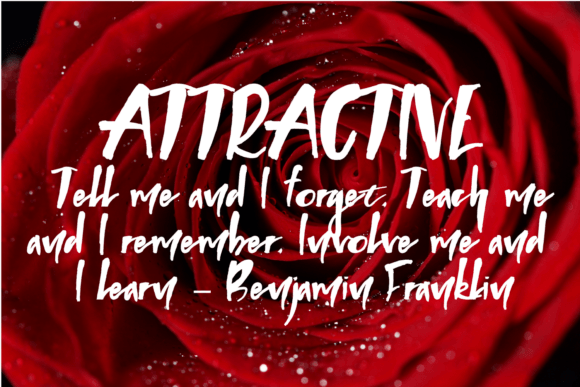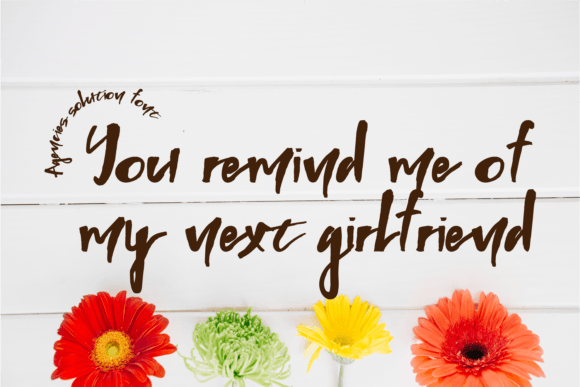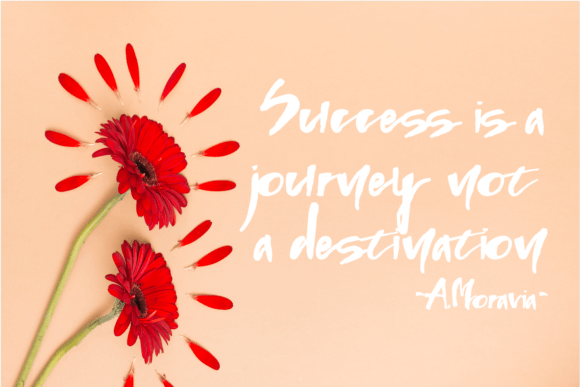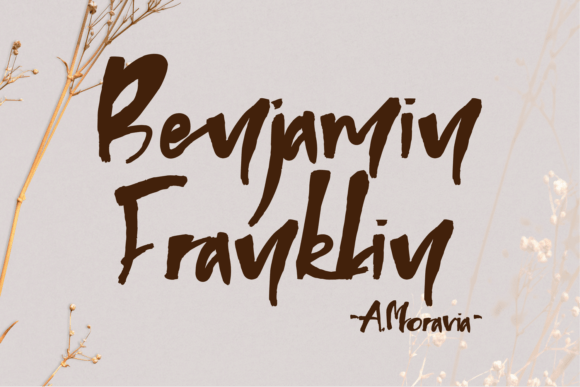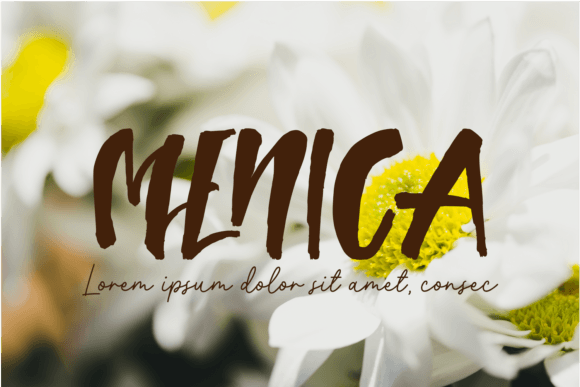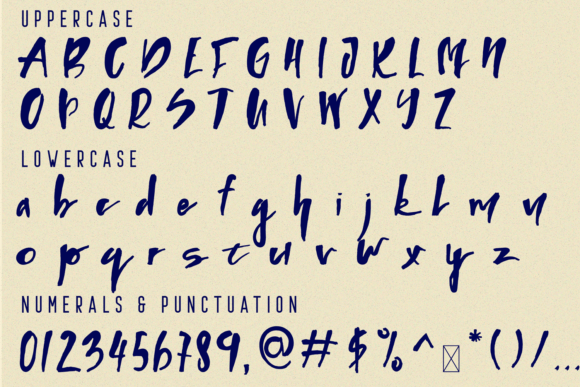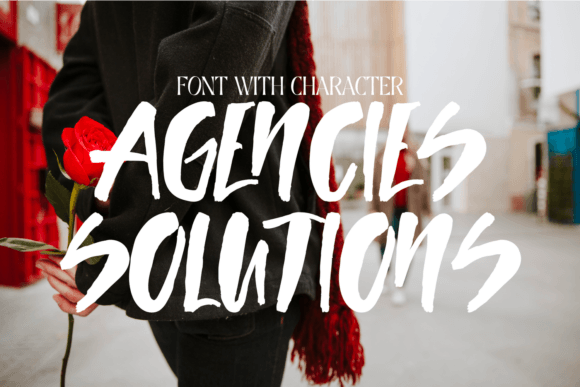
Introducing Agencies Solutions Font: Elevate Your Creative Projects with a Handwritten Display Font
Are you tired of using the same old fonts in your creative projects? Do you want to add a personal touch that sets your work apart from the rest? Look no further than Agencies Solutions Font, a handwritten display font that brings a strikingly authentic feel to your designs. In this article, we’ll dive into the features and benefits of Agencies Solutions Font, and explore how it can elevate your creative projects.
What is Agencies Solutions Font?
Agencies Solutions Font is a carefully crafted handwritten display font that exudes a sense of personality and charm. Its unique, hand-written style gives it a distinctive and authentic feel that’s perfect for adding a personal touch to your creative projects. Whether you’re a designer, craftsperson, or DIY enthusiast, Agencies Solutions Font is the perfect choice for anyone looking to add a touch of elegance and sophistication to their work.
Key Features of Agencies Solutions Font
• Handwritten Display Font: Agencies Solutions Font is a handwritten display font that’s designed to make a statement. Its unique, flowing script is perfect for headlines, titles, and other display text.
• Authentic Feel: With its carefully crafted letterforms and natural flow, Agencies Solutions Font has a strikingly authentic feel that’s sure to capture the attention of your audience.
• Versatile: Whether you’re working on a logo, brochure, or social media graphic, Agencies Solutions Font is versatile enough to fit any design need.
Benefits of Using Agencies Solutions Font
So why choose Agencies Solutions Font for your creative projects? Here are just a few benefits of using this amazing font:
• Adds Personality: Agencies Solutions Font adds a personal touch to your designs, setting them apart from the standard fonts and giving them a unique, handmade feel.
• Enhances Readability: With its clear and flowing script, Agencies Solutions Font is easy to read and understand, making it perfect for body text and headlines.
• Boosts Creativity: Agencies Solutions Font is designed to inspire creativity and imagination. Its unique style and authentic feel will help spark new ideas and bring your designs to life.
• Professional Results: With Agencies Solutions Font, you can achieve professional-looking results without the need for extensive design experience.
How to Use Agencies Solutions Font in Your Creative Projects
Using Agencies Solutions Font in your creative projects is easy. Here are a few tips to get you started:
• Pair it with Other Fonts: Agencies Solutions Font pairs well with other fonts, making it easy to create visually appealing combinations.
• Experiment with Colors: Try pairing Agencies Solutions Font with different colors to create a unique and eye-catching effect.
• Use it for Headlines: Agencies Solutions Font is perfect for headlines and titles. Use it to add a touch of elegance and sophistication to your designs.
• Add Texture and Patterns: Consider adding texture and patterns to your designs to give them an extra layer of depth and interest.
Font Name Agencies Solutions Font
Author 177Studio
Agencies Solutions Font is a powerful tool for designers and crafters looking to add a personal touch to their creative projects. With its unique, handwritten style and authentic feel, it’s the perfect choice for anyone looking to elevate their designs and achieve professional-looking results. So why wait? Download Agencies Solutions Font today and start adding a touch of elegance and sophistication to your creative projects!